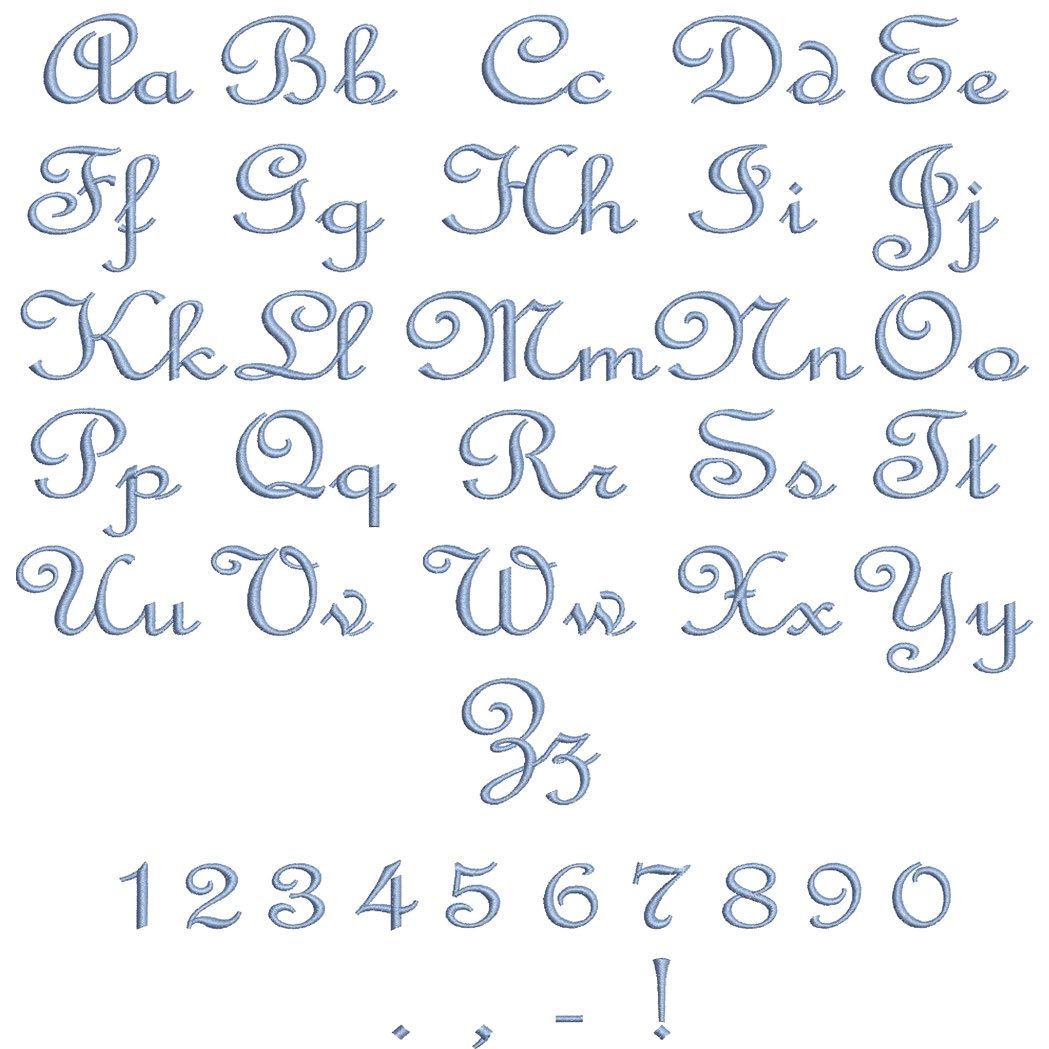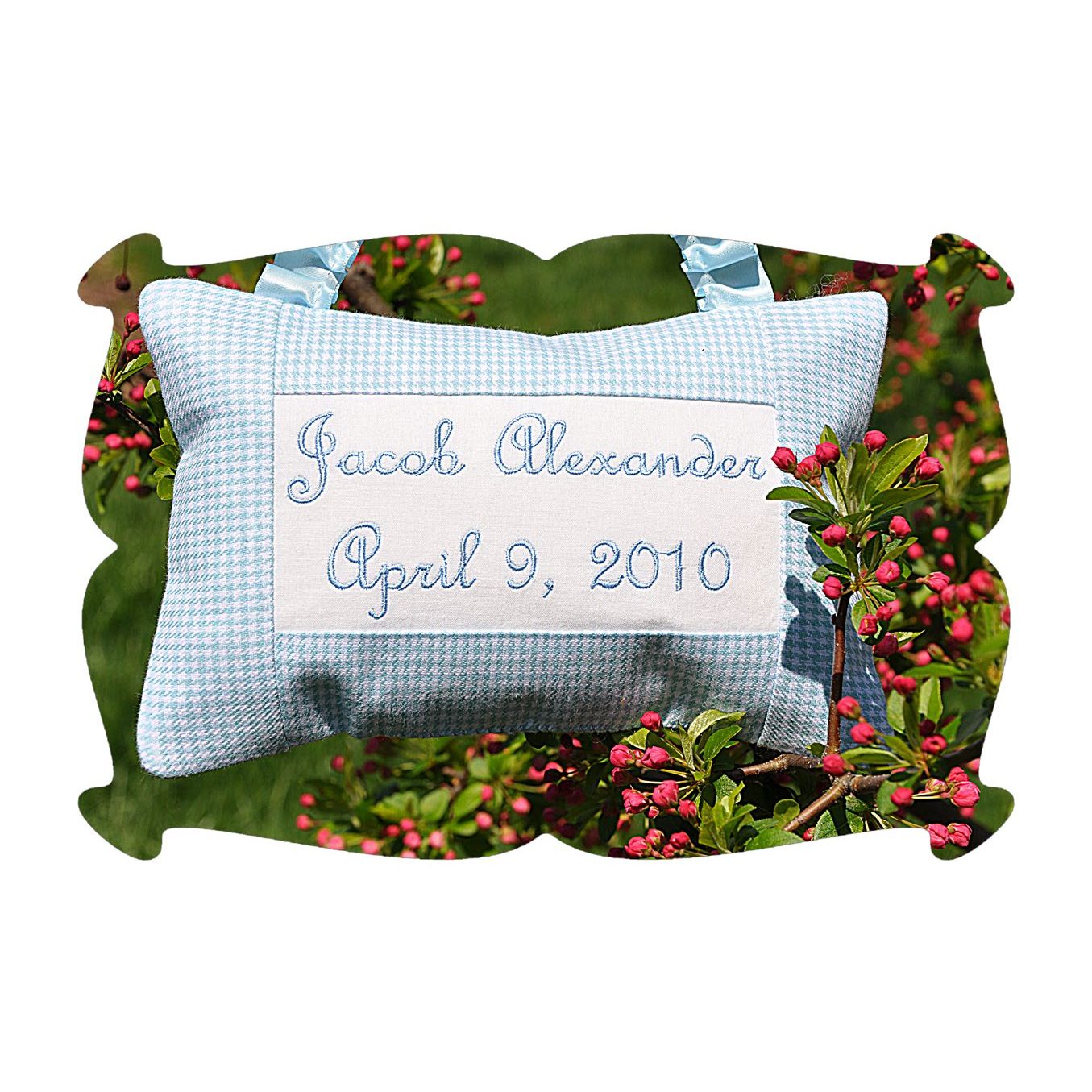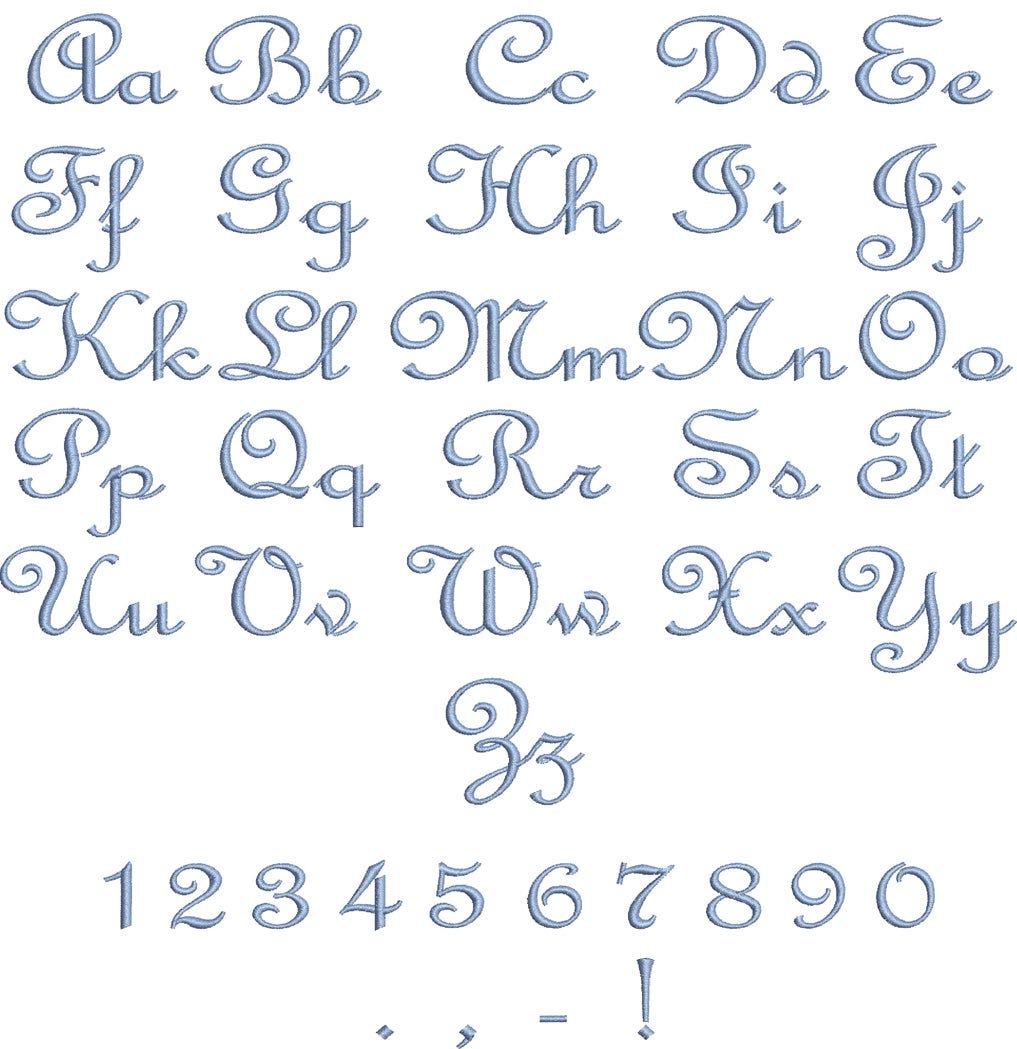
Maddison Satin Stitch Embroidery Font
Maddison Embroidery Font
So many of you have requested that I digitize the font I used a few months ago on the name pillow. (The 1 inch font size was used)
It really is such a beautiful satin script font.
A beautiful stitch out no matter what you choose put it on...
...from burps....
...to Onesies, t's and more!
The Maddison Embroidery Font comes with capital letters A thru Z, lower case letters a thru z, numbers 0-9 and puncuation (period, hyphen, comma and exclamation point).